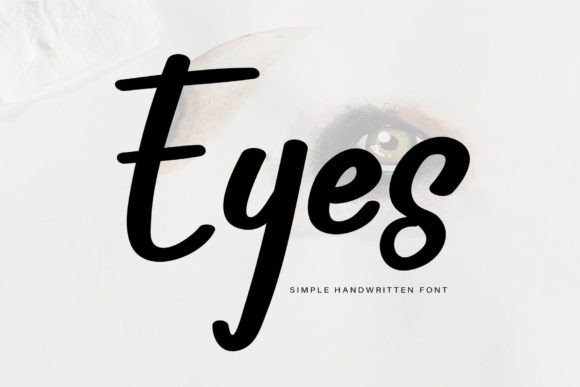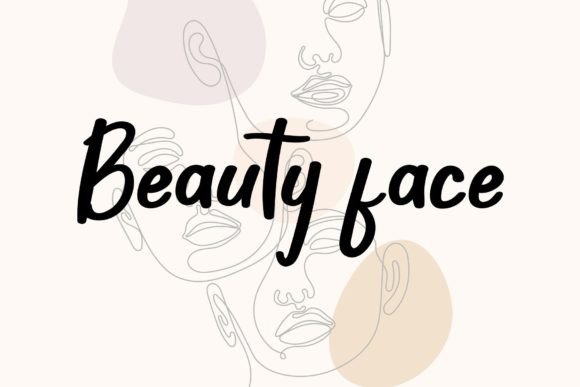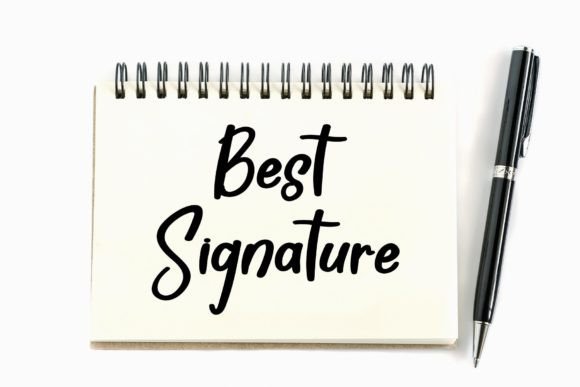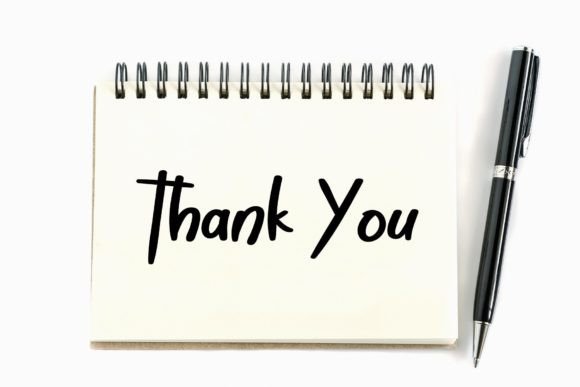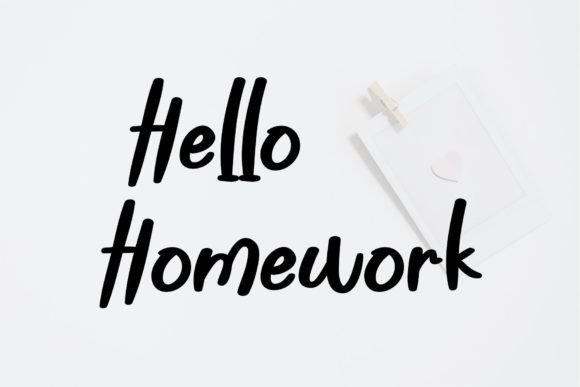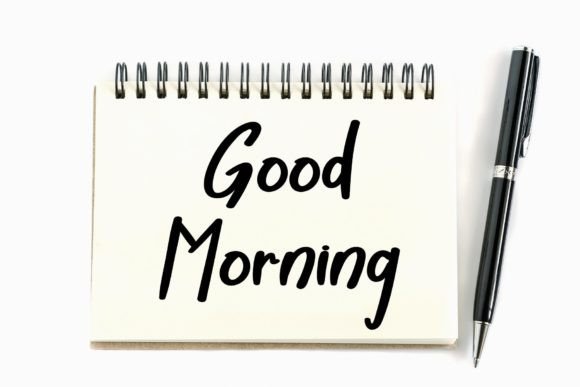
Eyes Font
About Eyes Font
“Eyes” is more than just a font; it’s a burst of fun and friendliness, a playful dance of characters that instantly adds a touch of joy to any design. Its whimsical charm and approachable style make it a versatile choice, transforming ordinary concepts into extraordinary creations.
Imagine your designs infused with the lively spirit of Eyes. Its handwritten playfulness brings a unique and approachable vibe, making every word feel like a friendly conversation. Whether you’re crafting birthday cards, designing social media posts, or creating a vibrant poster, Eyes injects a sense of energy and creativity that captures attention and hearts alike.
The characters in Eyes don’t just sit on the page; they leap off with enthusiasm, leaving behind a trail of cheerfulness. This font isn’t just a typographic choice; it’s an invitation to play, to explore, and to embrace creativity. It turns mundane ideas into vibrant visual experiences, where every letter radiates positivity and warmth.
Picture Eyes adorning children’s books, turning stories into delightful adventures filled with imagination and wonder. It’s the perfect choice for event invitations, infusing gatherings with a sense of excitement and anticipation. Imagine your marketing materials, each word in Eyes creating a friendly connection with your audience, making them feel valued and understood.
In a world where first impressions matter, Eyes stands out as a beacon of approachability and creativity. Its friendly handwritten style adds a personal touch to your projects, making them relatable and engaging. It’s not just a font; it’s an experience—an experience that speaks of playfulness, friendliness, and endless possibilities.
When you choose Eyes for your design projects, you’re not just selecting a font; you’re embracing a spirit of fun and creativity. You’re inviting your audience to join you on a delightful journey, where every curve of the letter brings a smile to their faces. Eyes is more than a typeface; it’s a source of inspiration, a playful muse that sparks imaginative designs and joyful creations.
So, whether you’re a professional designer seeking to evoke smiles or an individual with a passion for creativity, Eyes is your cheerful companion. It’s more than a font; it’s an opportunity to spread happiness, one letter at a time. Let Eyes be the playful brush that colors your imagination and the handwritten touch that turns your designs into true standouts.